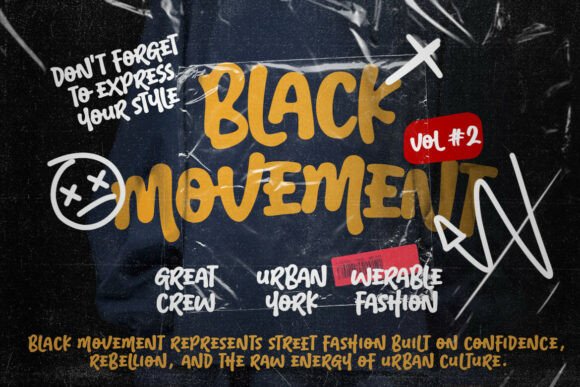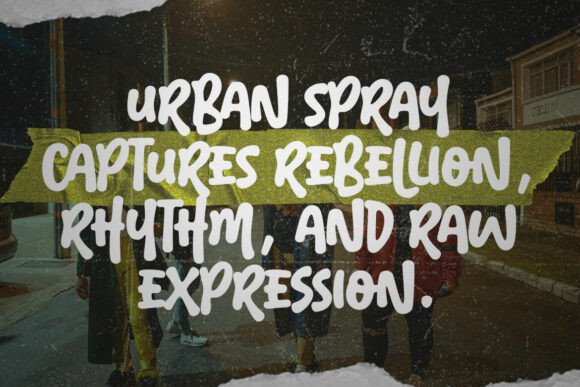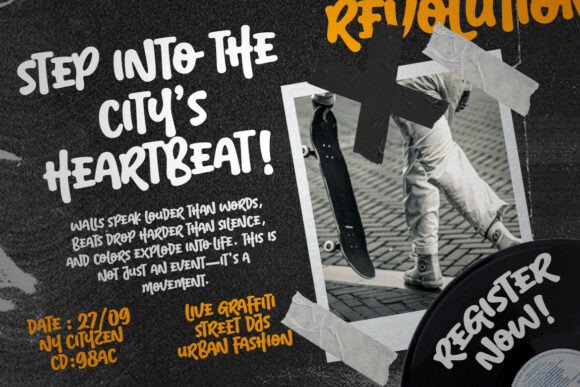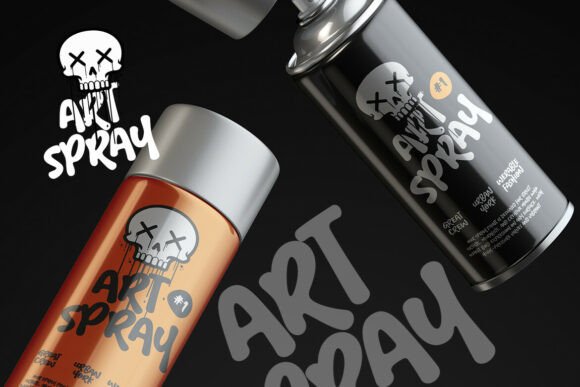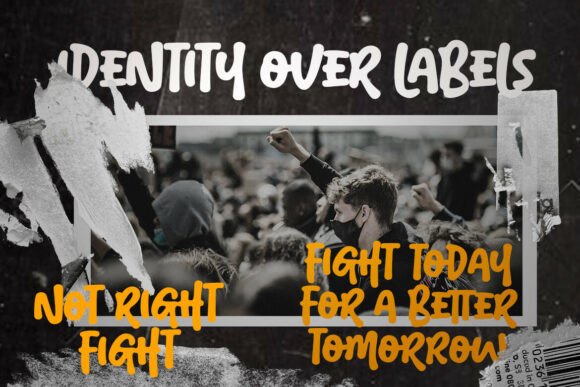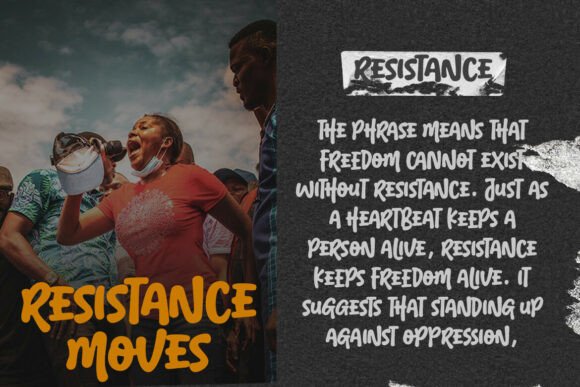
Unleash the Urban Spirit: Exploring the Hamburgo Font
In the world of typography, few fonts capture the essence of city life as boldly as Hamburgo. This dynamic typeface is inspired by the vibrant street culture and graffiti aesthetics that pulse through urban landscapes. With its strong, energetic letterforms, Hamburgo is the perfect choice for designers and crafters looking to infuse their projects with the raw spirit of the streets.
The Urban Inspiration Behind Hamburgo
Hamburgo’s design is rooted in the visual language of city streets, where graffiti, posters, and street art reign supreme. The font’s creator sought to distill the energy and attitude of urban life into a typographic form that would speak to designers and audiences alike. The result is a font that embodies the rhythm, movement, and rebellious spirit of the city, making it an ideal choice for projects that demand attention and exude confidence.
Key Features of the Hamburgo Font
- Bold and Dynamic Letterforms: Hamburgo’s letters are designed to make a statement, with bold lines, sharp angles, and a kinetic energy that propels the eye through the text.
- Street Culture Inspiration: The font’s aesthetic is inspired by the urban landscape, with nods to graffiti, street art, and the DIY ethos that defines city creativity.
- Versatility: Hamburgo is designed to be versatile, suitable for a wide range of applications, from posters and apparel to branding and social media.
Perfect for Modern Design Projects
Hamburgo’s unique blend of style and attitude makes it an excellent choice for designers and crafters working on modern projects. Whether you’re creating a bold poster, designing a logo, or crafting a social media campaign, Hamburgo turns every word into a powerful statement. Its urban spirit and dynamic energy ensure that your message will stand out in a crowded digital landscape.
Applications for Hamburgo
The possibilities for Hamburgo are endless, but here are some ideas to get you started:
- Posters and Flyers: Use Hamburgo to create eye-catching posters and flyers that demand attention and convey a sense of urgency.
- Apparel and Merchandise: Add an urban edge to your apparel and merchandise designs with Hamburgo’s bold, street-inspired lettering.
- Branding and Identity: Incorporate Hamburgo into your brand’s visual identity to convey a sense of energy, creativity, and rebellion.
- Social Media Graphics: Elevate your social media presence with Hamburgo’s dynamic typography, perfect for creating engaging graphics and posts.
Tips for Working with Hamburgo
To get the most out of Hamburgo, consider the following tips:
- Experiment with Color: Hamburgo looks great in bold, bright colors that reflect the urban landscape. Don’t be afraid to experiment with different hues and gradients.
- Play with Scale: Hamburgo’s dynamic energy is amplified when used at larger sizes. Experiment with different scales to create visual interest and hierarchy.
- Mix and Match: Combine Hamburgo with other fonts to create contrast and add depth to your designs.
Hamburgo is more than just a font – it’s a statement of intent, a reflection of the urban spirit, and a tool for designers and crafters to express their creativity. With its bold, dynamic letterforms and street culture inspiration, Hamburgo is the perfect choice for modern design projects that demand attention and exude confidence. So why settle for ordinary typography when you can unleash the urban spirit with Hamburgo?